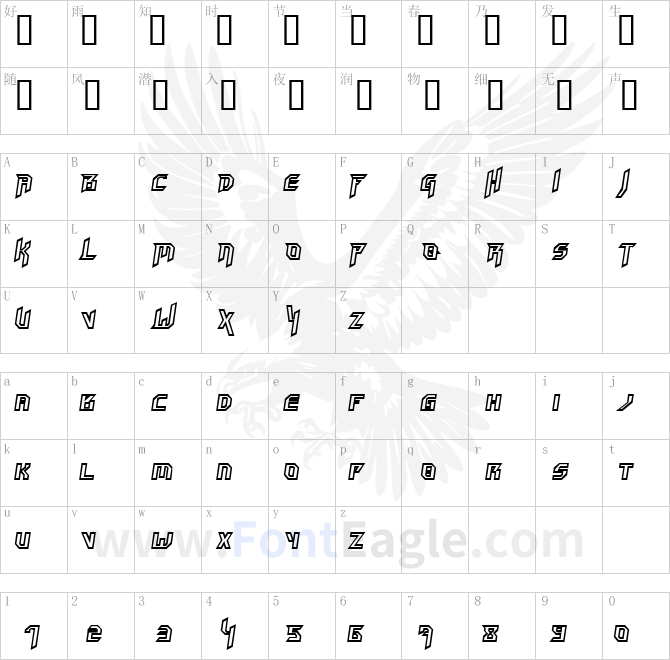
- Font name:HammerheadOutline
- Font Subfamily ID:Hammerhead Italic
- Font Full Name:HammerheadOutline Italic
- Font Version:Fontmaker 2.0 (07.04.1999)
- Postscript:HammerheadOutlineItalic
- Font Copyright:designed by Dieter Schumacher 1999